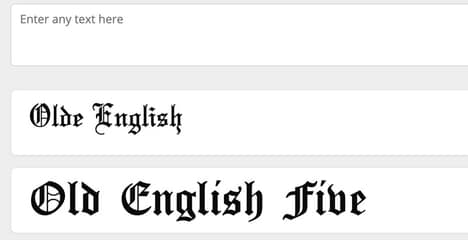
Black and Pink Blackletter Fonts in 'Fraktur Mon Amour'
'Fraktur Mon Amour' is the title of a new book by designer Judith Schalansky which takes you on a historic journey through blackletter fonts. The book itself looks like a black and pink bible -- and will probably be considered a bible for all lovers of graphics and fonts.
Fraktur Mon Amour reproduces 300 variations of Blackletter fonts, ranging from historical fonts to contemporary reinventions in a sensuous, beautifully crafted hot-pink prayer book-style catalog that is destined to become a fetish object for designers and type enthusiasts.
The beautiful designer “bible” takes us through more than 300 different Blackletter fonts and each one is presented on a full spread with its complete alphabet, history including date of origin, and the name of its designer. In addition to that, you also receive a CD with 137 of these wonderful fonts for free private use.
‘Fraktur Mon Amour’ will definitely be a fetish object among typographic geeks - and the book has already won several awards including the Type Directors Club of New York's 2007 Award for Typographic Excellence.